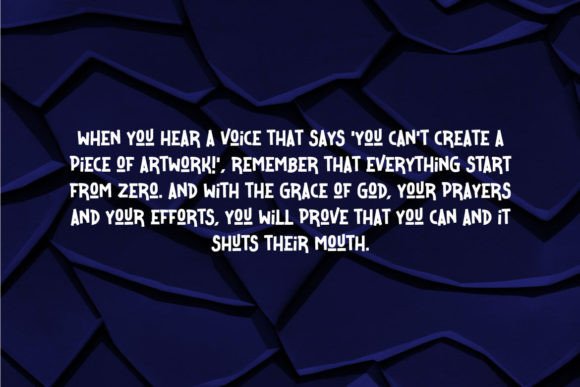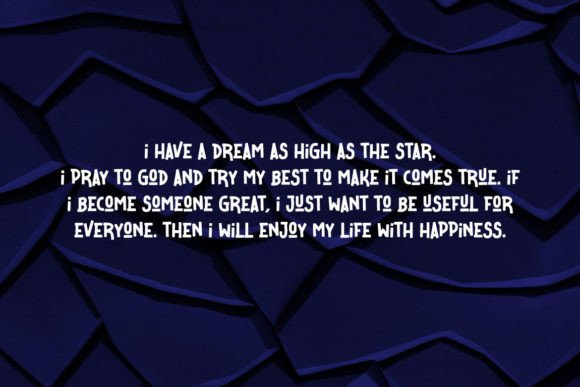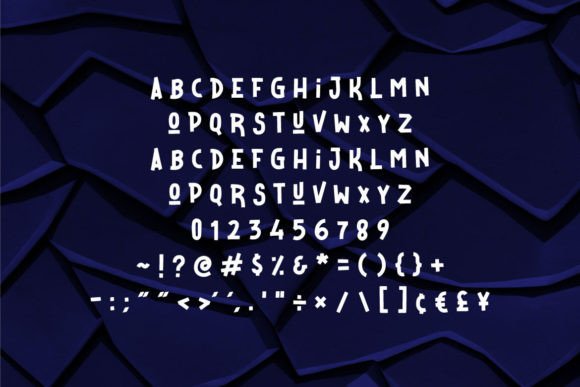
Introduction to Jiro Fukia Font
Have you ever stumbled upon a design project that sparks pure joy and creativity? Maybe it was a children’s book that captured the imagination of a young reader, or a social media graphic that made you smile. Whatever it was, it’s likely that the right font played a significant role in creating that magical moment. Introducing Jiro Fukia Font, a vibrant and playful decorative display font that’s sure to bring a touch of whimsy to your creative projects.
As a designer, you know that the right font can make all the difference in elevating your work from ordinary to extraordinary. Jiro Fukia Font is a high-quality design resource that’s perfect for a wide range of projects, from logos and branding to social media graphics and posters. With its transparent background and quirky lines, this font is sure to add a creative twist to your designs.
Whether you’re working on a children’s book, a party invitation, or a social media campaign, Jiro Fukia Font is the perfect tool to bring a smile to every face. And the best part? It’s available for free download, making it an accessible design resource for designers of all levels.
Key Features of Jiro Fukia Font
- Unique, handwritten font design with a high level of detail and texture, making it suitable for creative projects that require a personal touch.
- Features a transparent background, allowing for easy layering and compositing in design applications.
- High-resolution design (300 DPI) ensures crisp and clear text rendering, even at large sizes.
- Ideal for use in creative projects, such as typography-based art, posters, and other design elements that require a unique, handwritten look.
- Available in a single weight, with a wide range of language support, making it suitable for use in a variety of languages and applications.
Honest Review: Jiro Fukia Font
As a designer, I’m always on the lookout for high-quality design resources to elevate my creative projects. Recently, I stumbled upon the Jiro Fukia Font, and I’m excited to share my honest review with you.
What works well: ✨ The Jiro Fukia Font is a beautifully crafted font that’s perfect for projects where a bold, modern look is desired. Its clean lines and elegant design make it a great choice for headings and titles. The font also comes with a transparent background, which is a big plus for designers who need to work with images or other design elements.
Overall, I’m impressed with the Jiro Fukia Font’s design and versatility. While it may have some limitations, it’s a great resource for designers who are looking for a bold, modern font for their creative projects.
Common Use Cases for Jiro Fukia Font
The Jiro Fukia Font is a versatile font that can be used in a variety of creative projects, including logos, brochures, business cards, and more. Its unique design and high-quality appearance make it a popular choice among designers and creatives.
Tips for Getting the Most Out of Jiro Fukia Font
To get the most out of the Jiro Fukia Font, be sure to pair it with a high-quality image or design element. You can also experiment with different font sizes, colors, and styles to create a unique and eye-catching design.